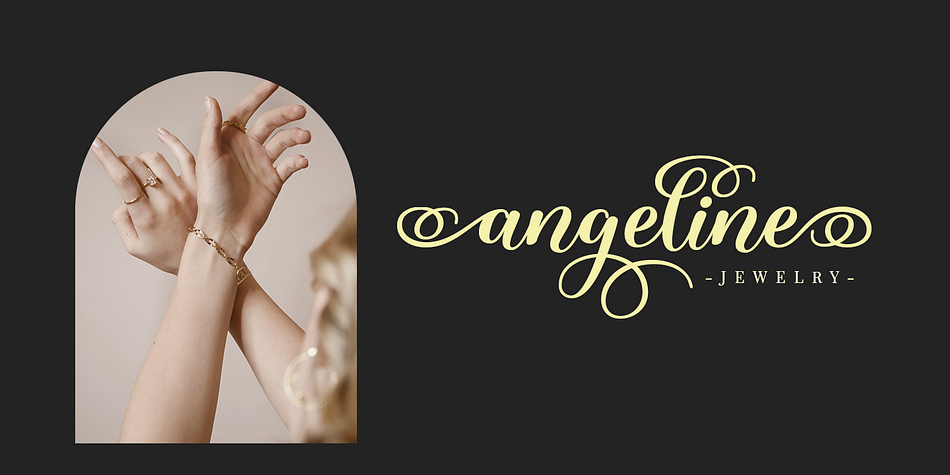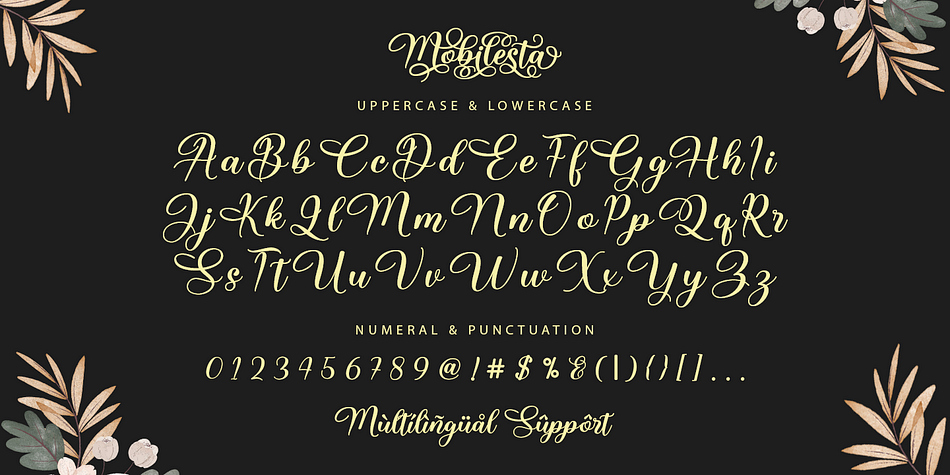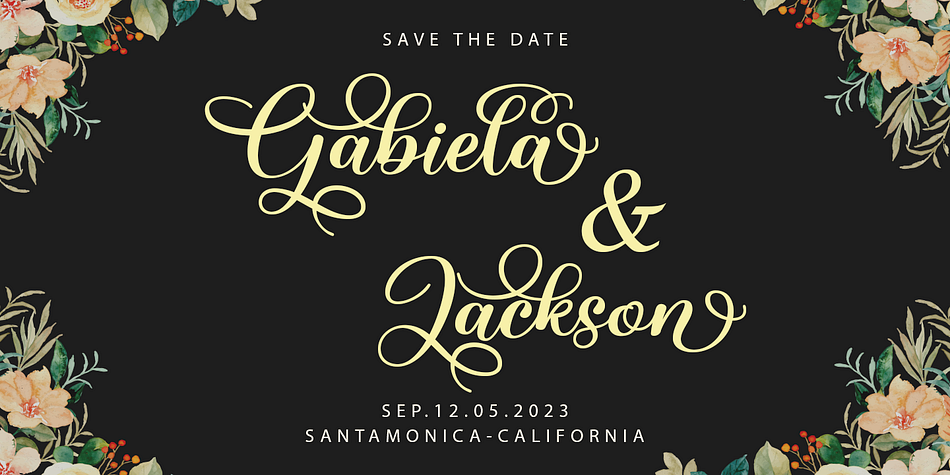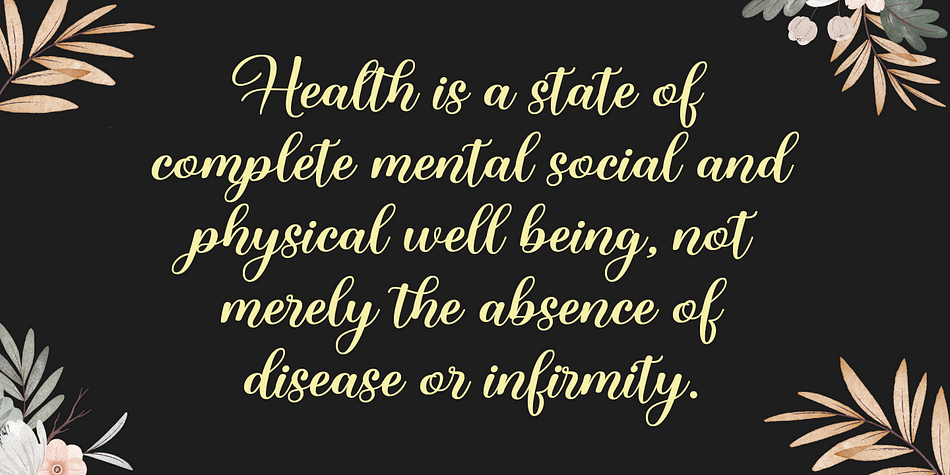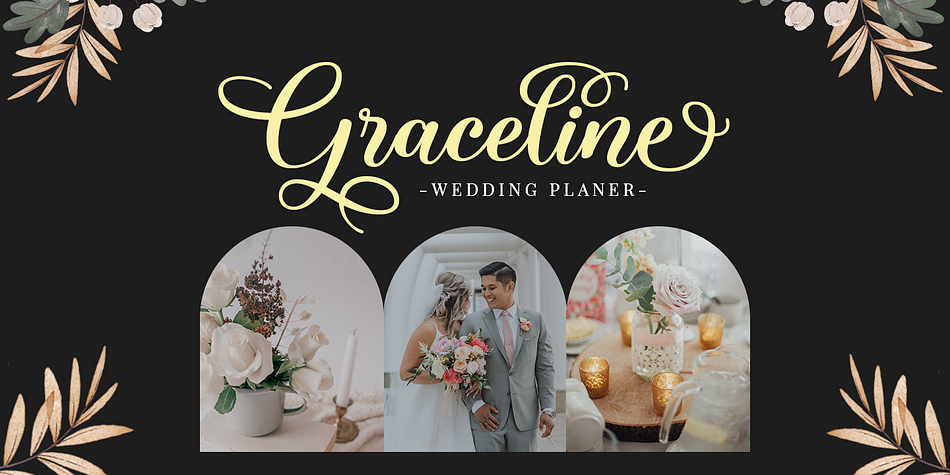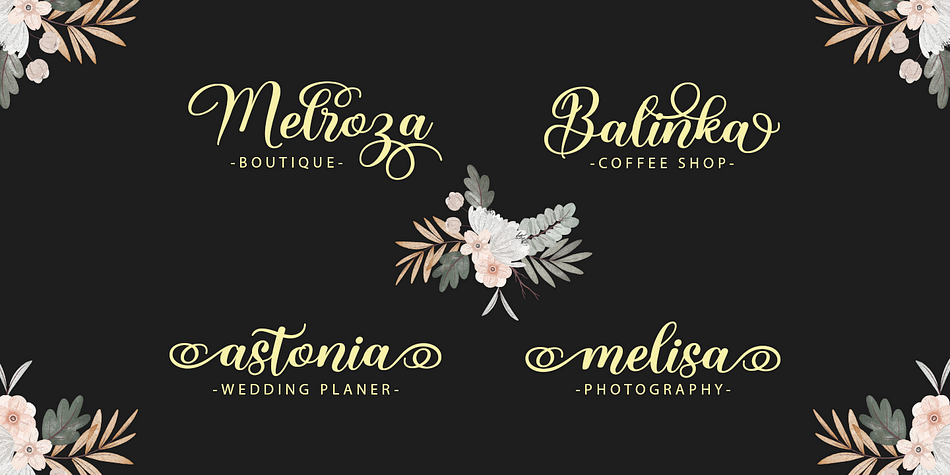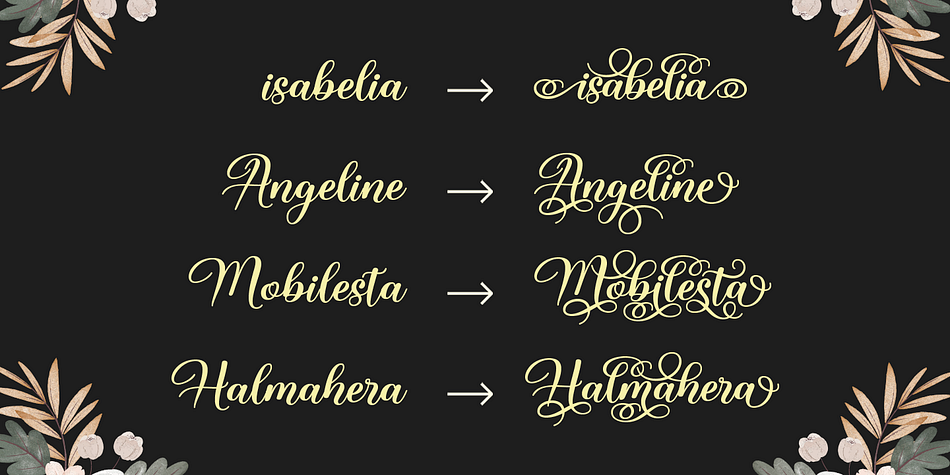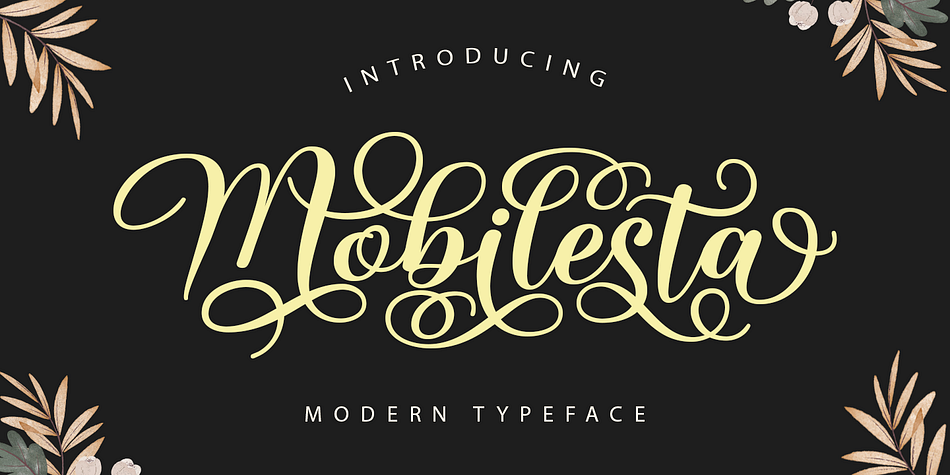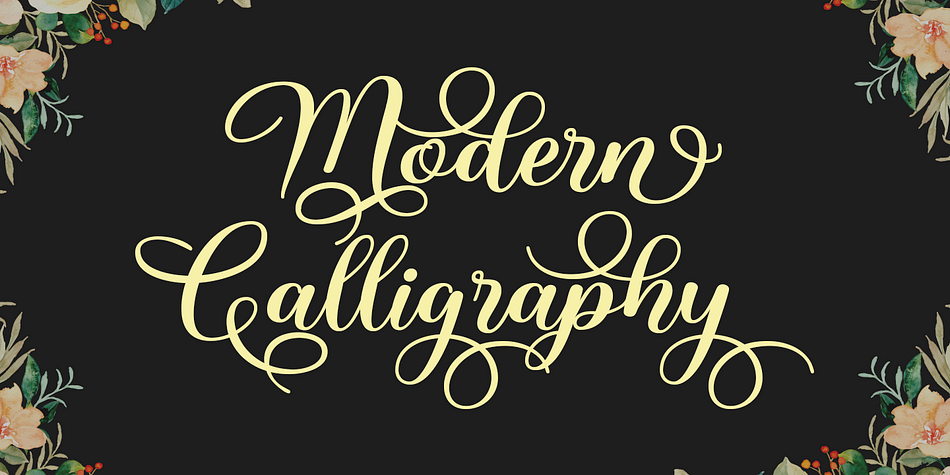
Mobilesta
Mobilesta is a modern calligraphy font family published by Gatype.
Mobilesta Script is a very unique handwriting, the shape is modern but pleasing to the eye and the style is very natural. This font is designed to potentially take any of your creative ideas to the highest level! These designs are used for branding, web and editorial design, print, craft, quotes, Great for logos, wedding invitations, romantic cards, labels, packaging, name spelling and more.
Mobilesta Script includes OpenType style alternatives, ligatures, and International support for most Western Languages. To enable the OpenType Stylistic alternative, you need a program that supports Adobe Illustrator CS, Adobe Indesign & CorelDraw X6-X7, Microsoft Word 2010 or later.